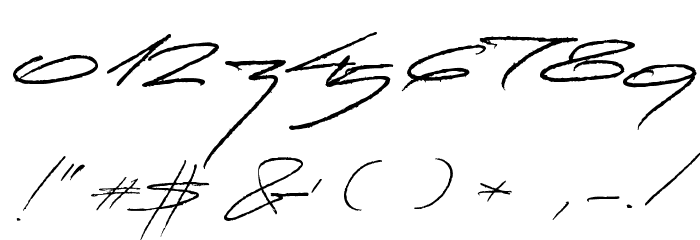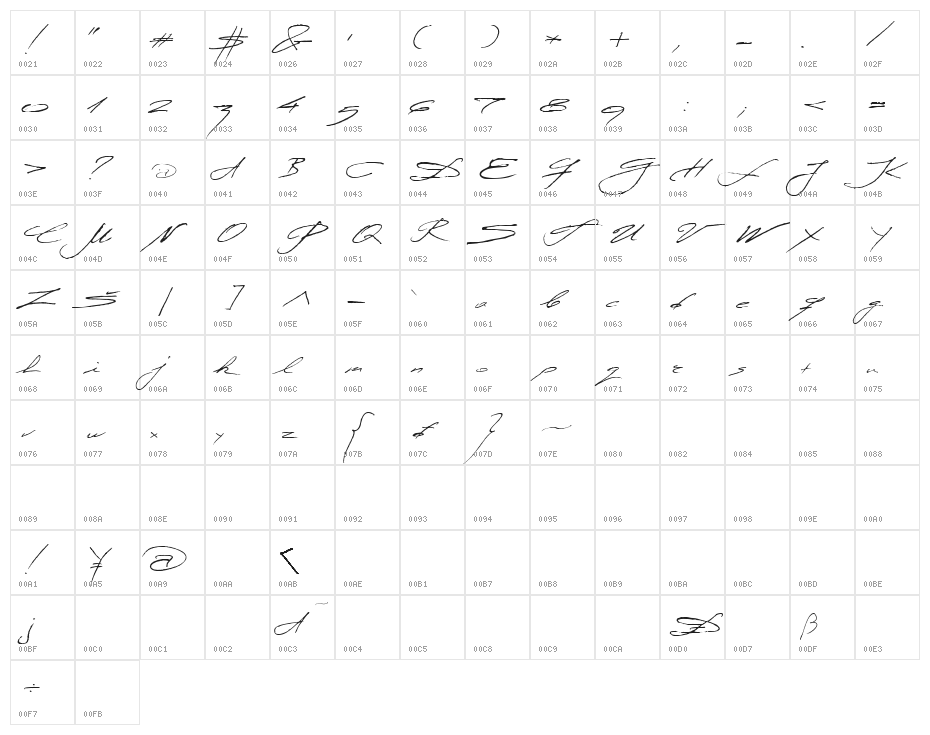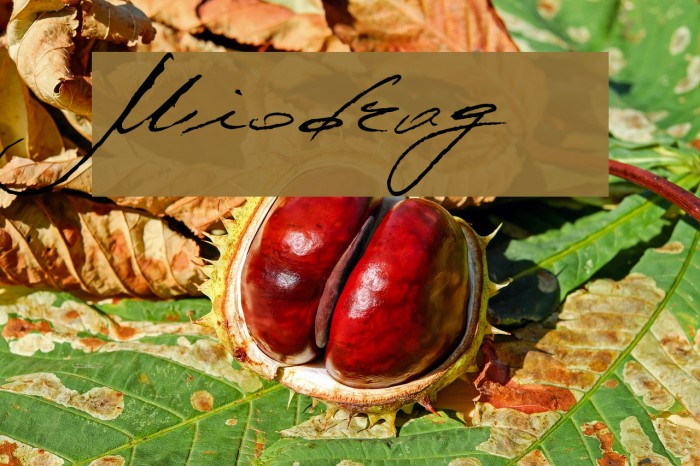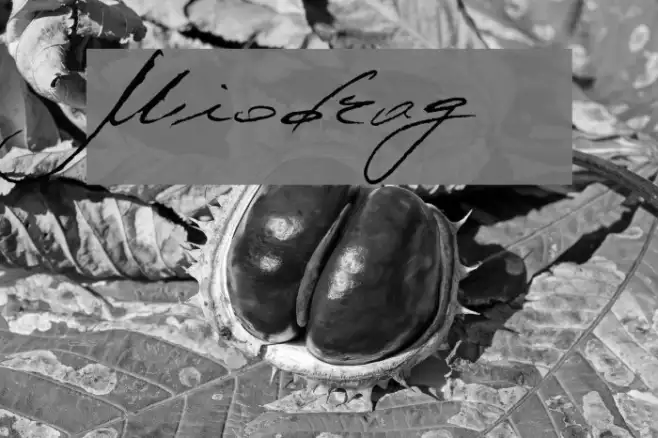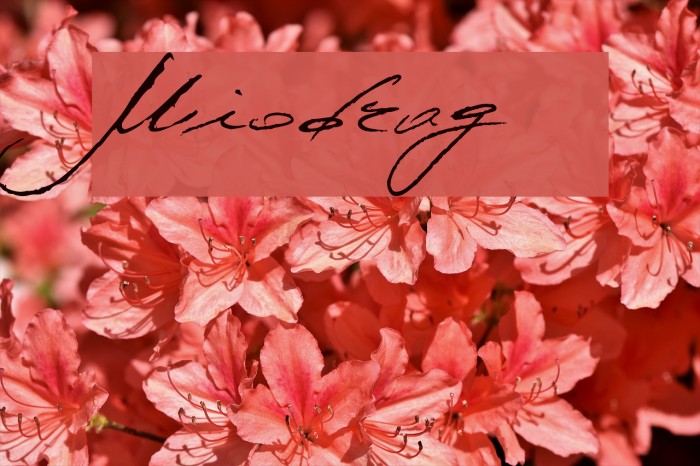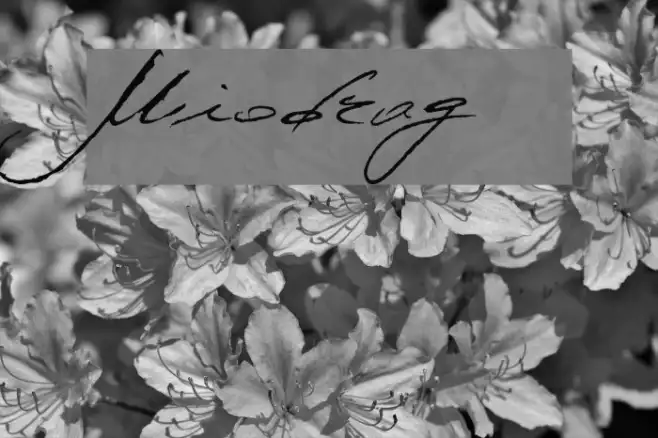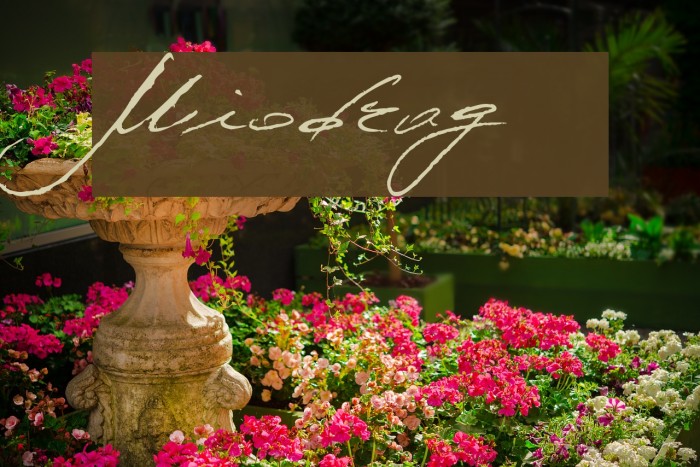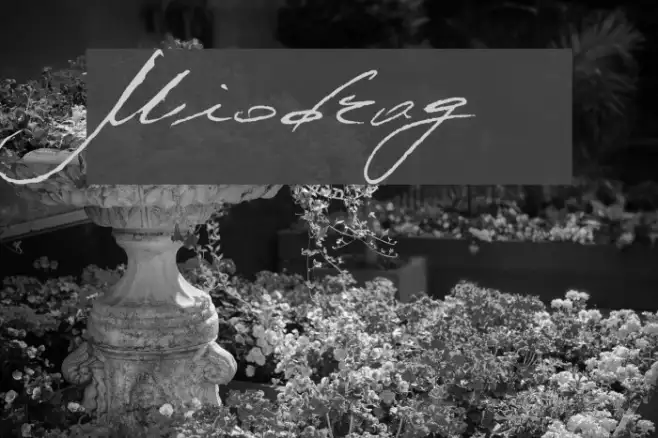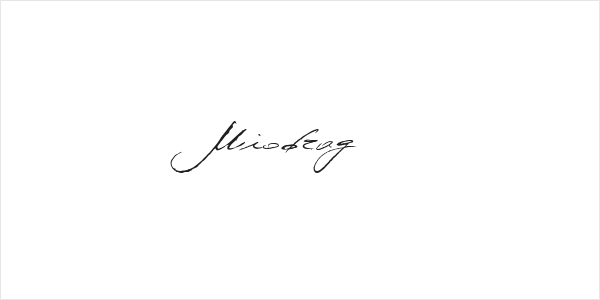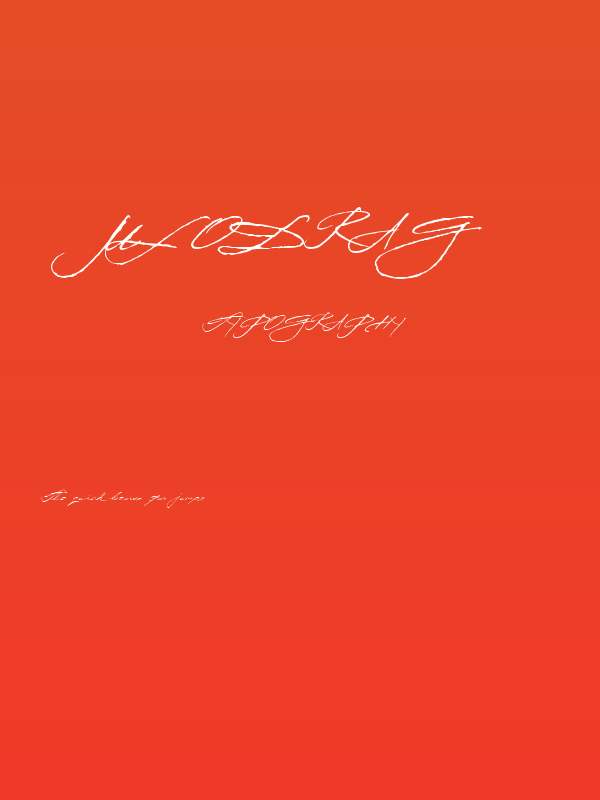
Miodrag Font
Miodrag Description
This font exhibits a fluid and elegant cursive style, characterized by its sweeping, interconnected strokes that mimic the natural flow of handwriting. The letters are slightly slanted, adding a dynamic and sophisticated touch. The uppercase letters are bold and prominent, while the lowercase letters maintain a consistent flow, enhancing readability. The numerals and special characters are crafted with the same attention to detail, ensuring a cohesive look across all elements. This font's artistic flair makes it suitable for projects that require a personal and expressive touch.
| Proposed Projects | Ideal for wedding invitations, personal branding, greeting cards, and artistic projects. |